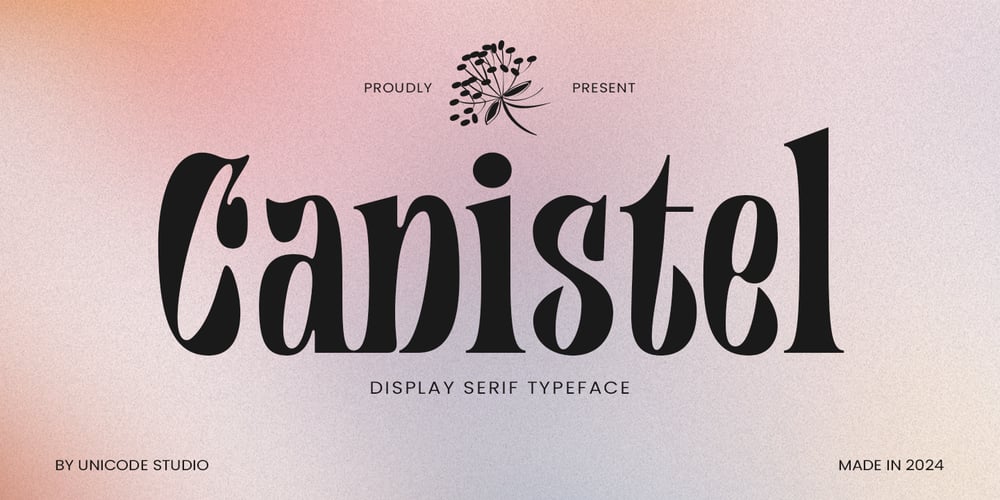
Canistel Font Family was designed by BOYHAQI . and published by Unicode Studio. Canistel contains 1 styles and family package options. Canistel font carries a classic and nostalgic feel and is also designed to attract attention at large sizes. It is usually used in headlines, posters, logos, branding, or designs that want to revive the atmosphere of the past but remain playful. This font tends to have unique, bold shapes and bold serifs and is experimental.Canistel font comes with features, Standard Ligatures, Stylistic Alternates, Uppercase and Lowercase, Numeral & Punctuation, and International Symbols Support.